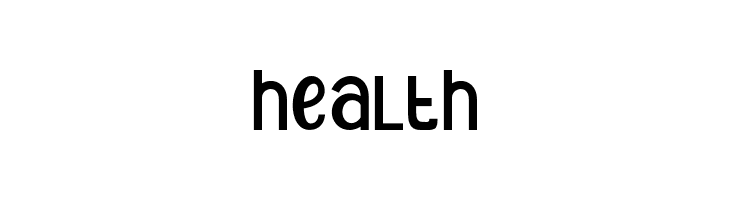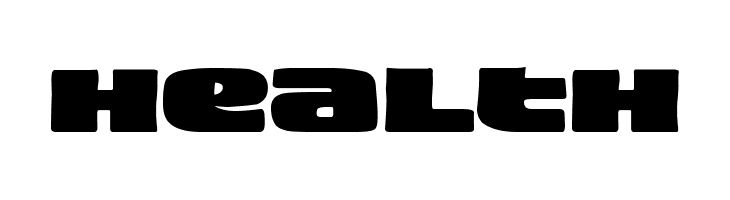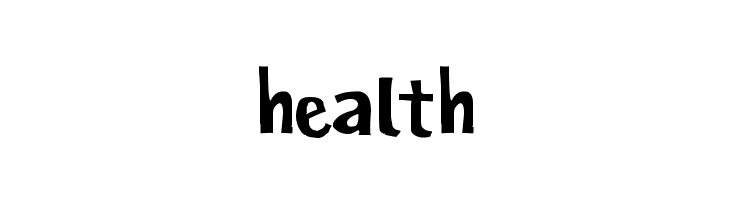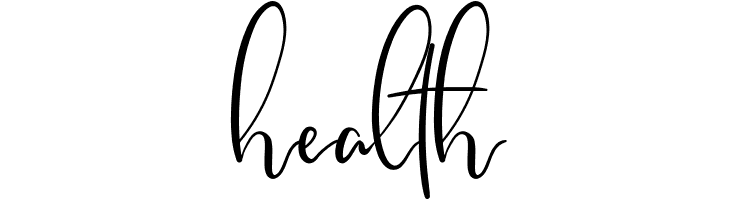
A lively, cursive font with interconnected letters and medium contrast, perfect for elegant projects.
A bold, distressed font with geometric shapes and rough edges.
A playful, handwritten-style font with bold, slightly condensed characters.
Bold, energetic handwritten script font.
A graceful script font with fluid, connected strokes, ideal for personal and elegant designs.
A flowing script font with elegant, connected strokes and a handwritten feel.
A whimsical, cursive script font with decorative swirls and loops.
A bold, playful handwritten font with a casual and friendly style.
A lively and elegant handwritten script with fluid, cursive strokes.
A dynamic, brush-style font with expressive, hand-drawn strokes.
A bold, dynamic script font with a casual, handwritten style.
A playful handwritten font with a casual and friendly style.
A playful and bold font with rounded strokes and a lively appearance.
A sophisticated script font with elegant, flowing letterforms and high contrast strokes.
A playful, bold script font with flowing, energetic letterforms.
A lively, expressive handwritten font with dynamic strokes and a playful elegance.
An elegant, flowing script font with a dynamic, cursive style.
A bold, cursive script font with dynamic and fluid strokes.
A dynamic, slanted script font with a flowing, cursive style.
An intricate and decorative font with a blend of sharp angles and smooth curves.
A bold, decorative font with intricate curves and sharp angles, ideal for artistic designs.
A bold, italicized font with high contrast and a modern, decorative style.
A decorative italic font with sharp, angular strokes and a flowing, cursive-like style.
A bold, geometric font with a strong industrial feel.
A bold, angular italic font with a dynamic and aggressive style.
A modern, geometric font with clean lines and a minimalist style.
A bold, decorative font with a distressed, dripping effect.
A bold, distressed font with a rugged, grunge-like texture.
A playful, hand-drawn font with bold outlines and irregular shapes.